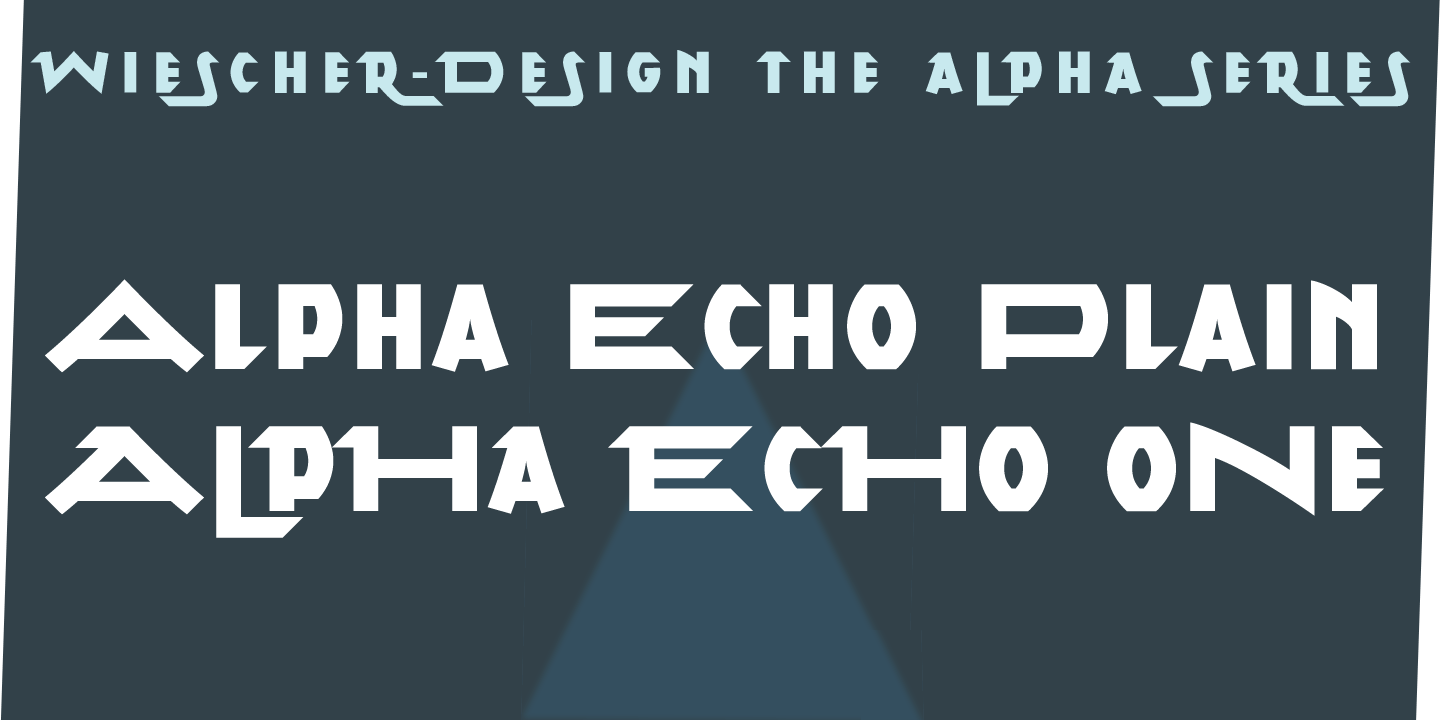
Alpha Echo
Font Family by Wiescher Design
AlphaEcho is another of my experimental typefaces. Very streched and pointed with wide and narrow capitals only.
For additional mixability I designed a set of swashes. Everything mixes with everything.
Give it a try, it is very interesting.
Your experimental Gert Wiescher